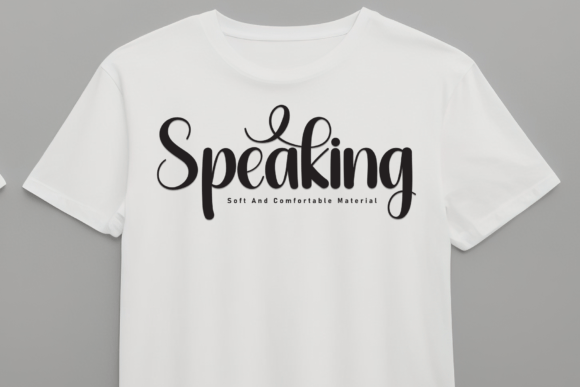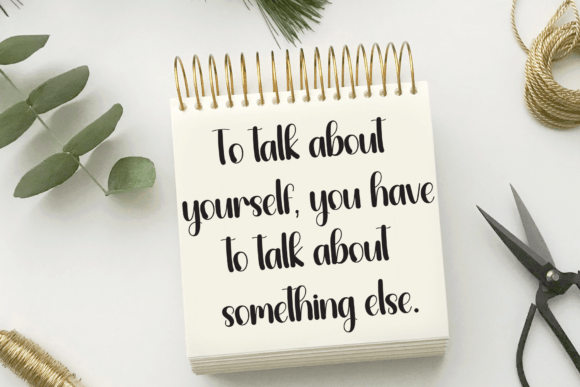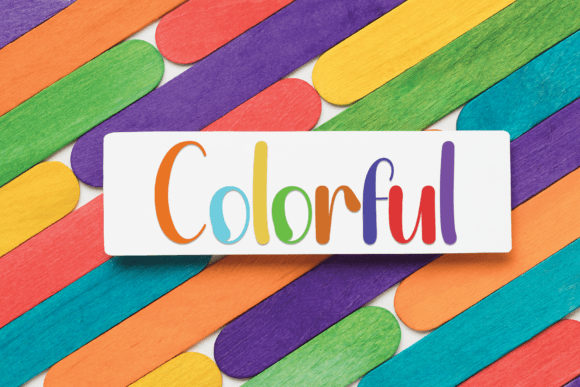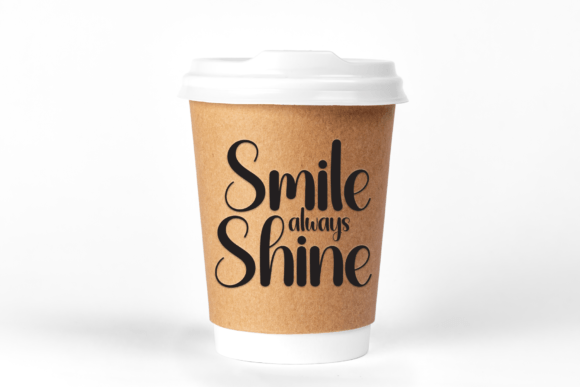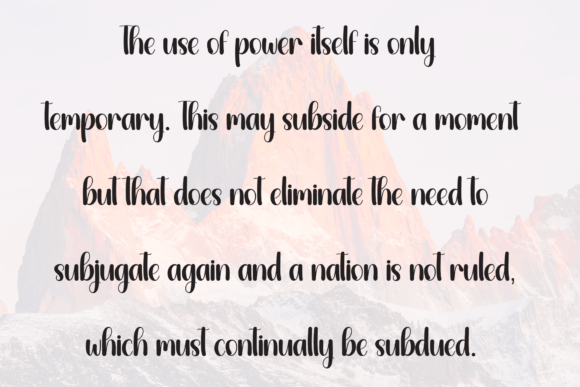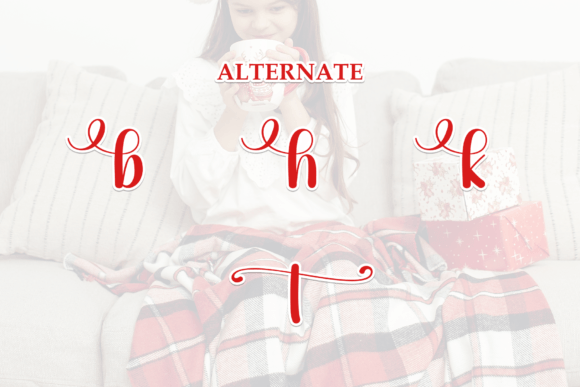
Introducing Blanket Christmas Font: The Ultimate Holiday Addition to Your Design Arsenal
Are you looking for a font that captures the essence of the holiday season? Do you want to add a touch of romance and whimsy to your designs? Look no further than the Blanket Christmas font, an enchanting handwritten script that’s perfect for a wide range of applications. From greeting cards to headlines, this versatile font is sure to become your go-to choice for all your holiday design needs.
The Charm of Blanket Christmas Font
Blanket Christmas is a beautiful, handwritten font that’s designed to evoke the warmth and coziness of the holiday season. Its elegant, cursive strokes are reminiscent of traditional Christmas cards and decorations, making it the perfect choice for designers and crafters looking to create festive and inviting designs.
What sets Blanket Christmas apart from other fonts is its unique blend of sophistication and playfulness. The font’s intricate details and flourishes add a touch of luxury to any design, while its friendly, approachable feel makes it perfect for a wide range of applications, from formal greeting cards to informal social media posts.
Uses for Blanket Christmas Font
One of the best things about Blanket Christmas font is its versatility. This amazing script font can be used for a wide range of applications, including:
- Greeting cards: Create beautiful, one-of-a-kind Christmas cards that will make your loved ones feel special.
- Headlines: Add a touch of holiday cheer to your headlines and titles with this elegant and eye-catching font.
- Social media posts: Make your social media posts stand out with this festive and engaging font.
- Signs and banners: Create eye-catching signs and banners that will add a touch of holiday magic to any event or display.
- Packaging: Add a personal touch to your holiday packaging with this beautiful and unique font.
Why Choose Blanket Christmas Font?
So why choose Blanket Christmas font for your holiday design needs? Here are just a few reasons why this amazing font is a must-have for designers and crafters:
- Unique and eye-catching: This font is sure to make your designs stand out from the crowd.
- Versatile: Use it for a wide range of applications, from formal greeting cards to informal social media posts.
- High-quality: This font is designed to produce high-quality results, even at small sizes.
Tips for Using Blanket Christmas Font
Here are a few tips for getting the most out of Blanket Christmas font:
- Use it with contrasting colors: This font looks best when paired with contrasting colors that make it stand out.
- Experiment with sizes: Try using this font in different sizes to create visual interest and add emphasis to your designs.
- Combine it with other fonts: This font pairs well with other script fonts and sans-serif fonts, making it easy to create beautiful and balanced designs.
Blanket Christmas font is a beautiful and versatile addition to any designer’s arsenal. Its unique blend of sophistication and playfulness makes it perfect for a wide range of applications, from formal greeting cards to informal social media posts. Whether you’re a designer, crafter, or DIY enthusiast, this enchanting handwritten font is sure to add a touch of holiday magic to your designs.